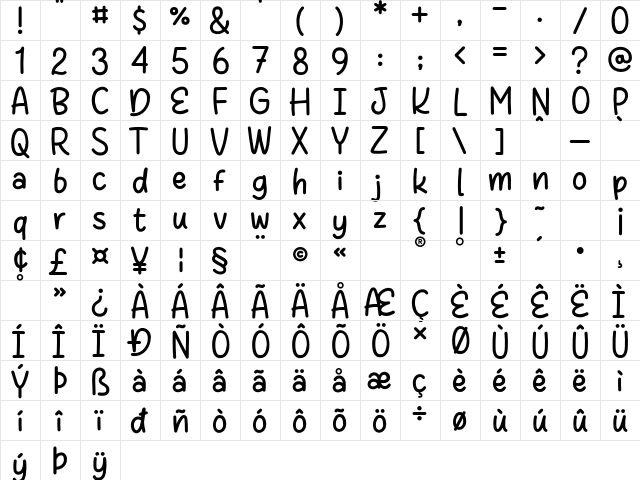
Cutie Dashley Regular
Design Context for Cutie Dashley Typeface
Cutie Dashley is a composed and adaptable typeface that performs quietly and consistently across a wide range of design contexts.